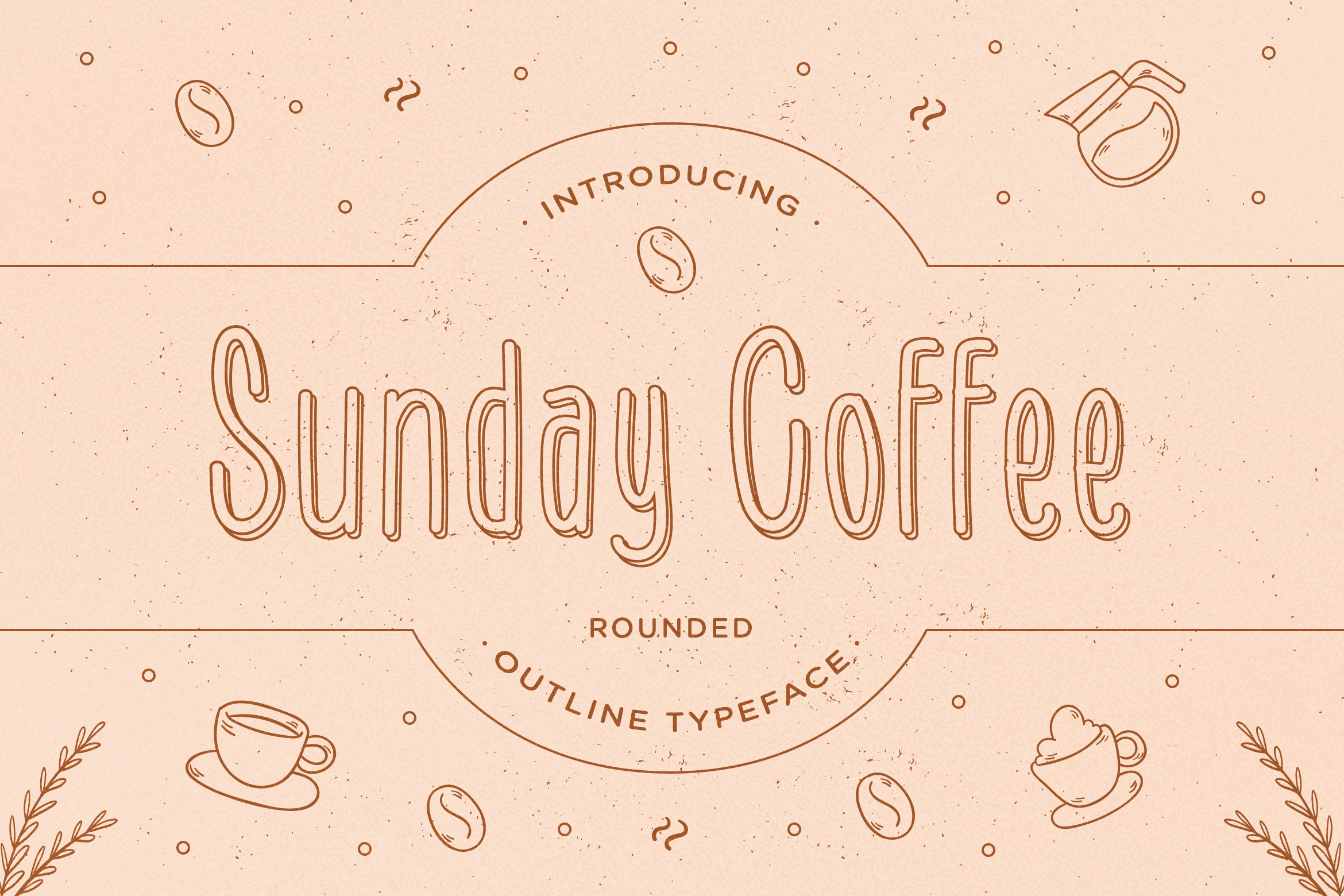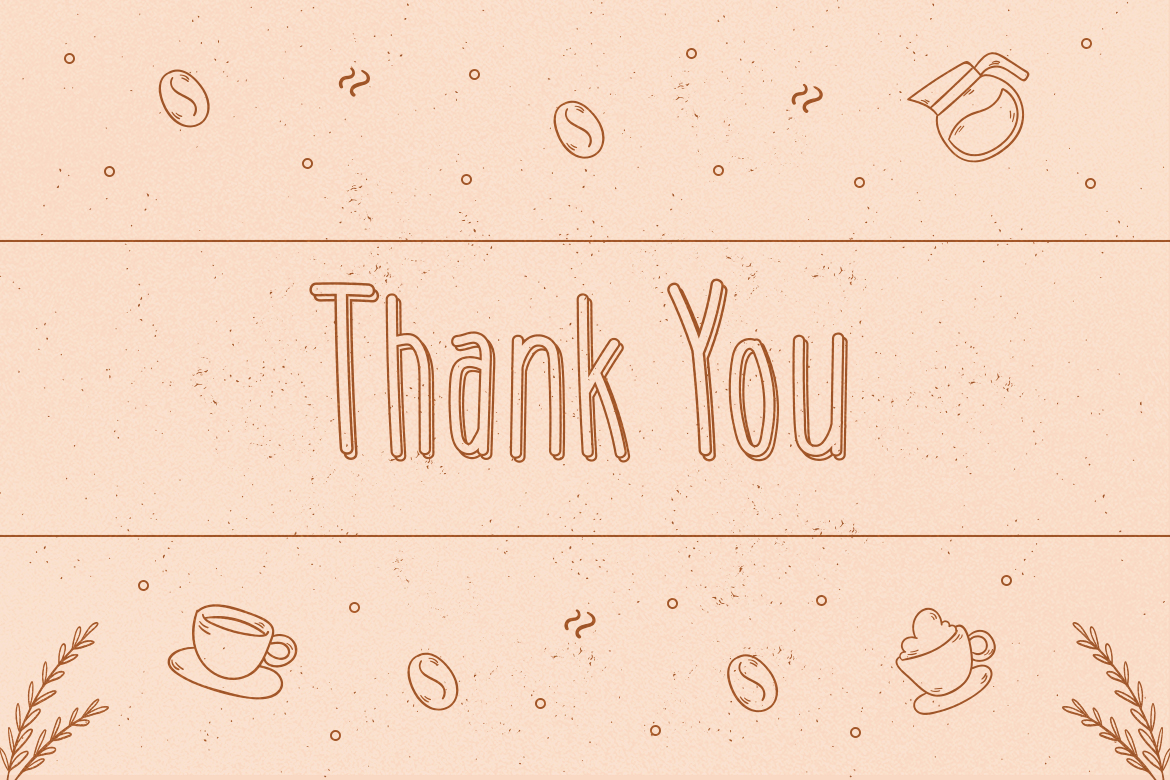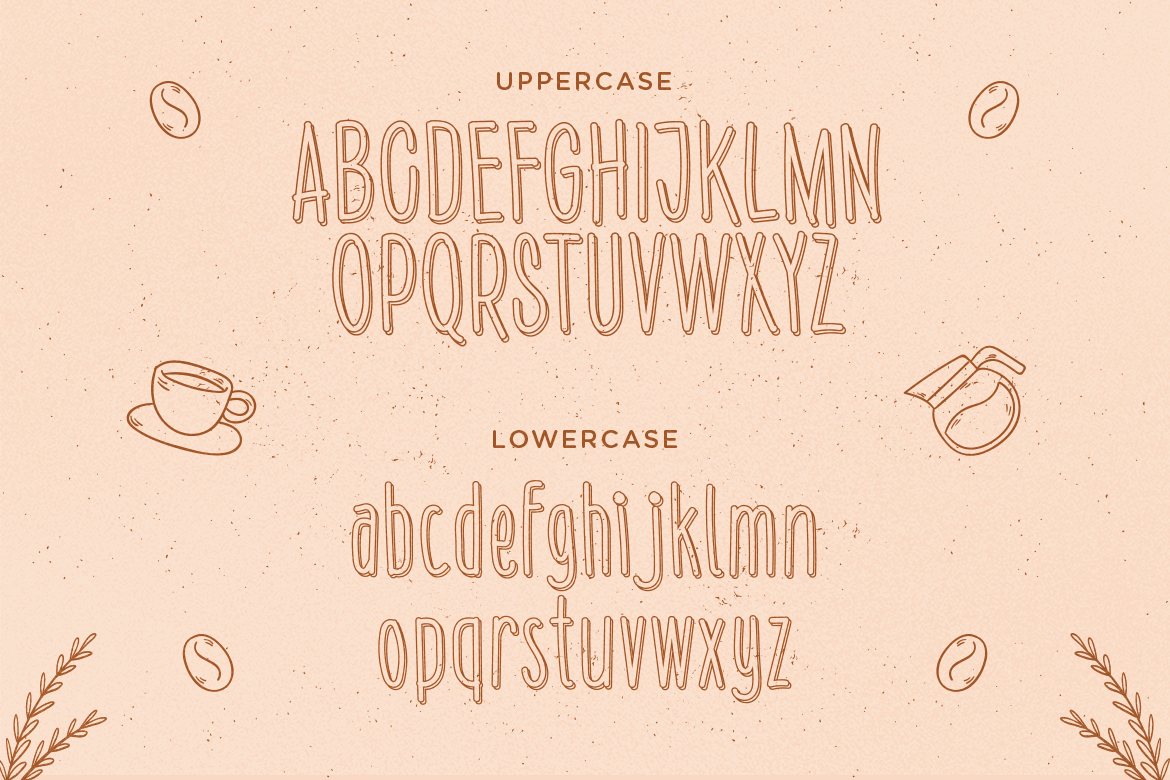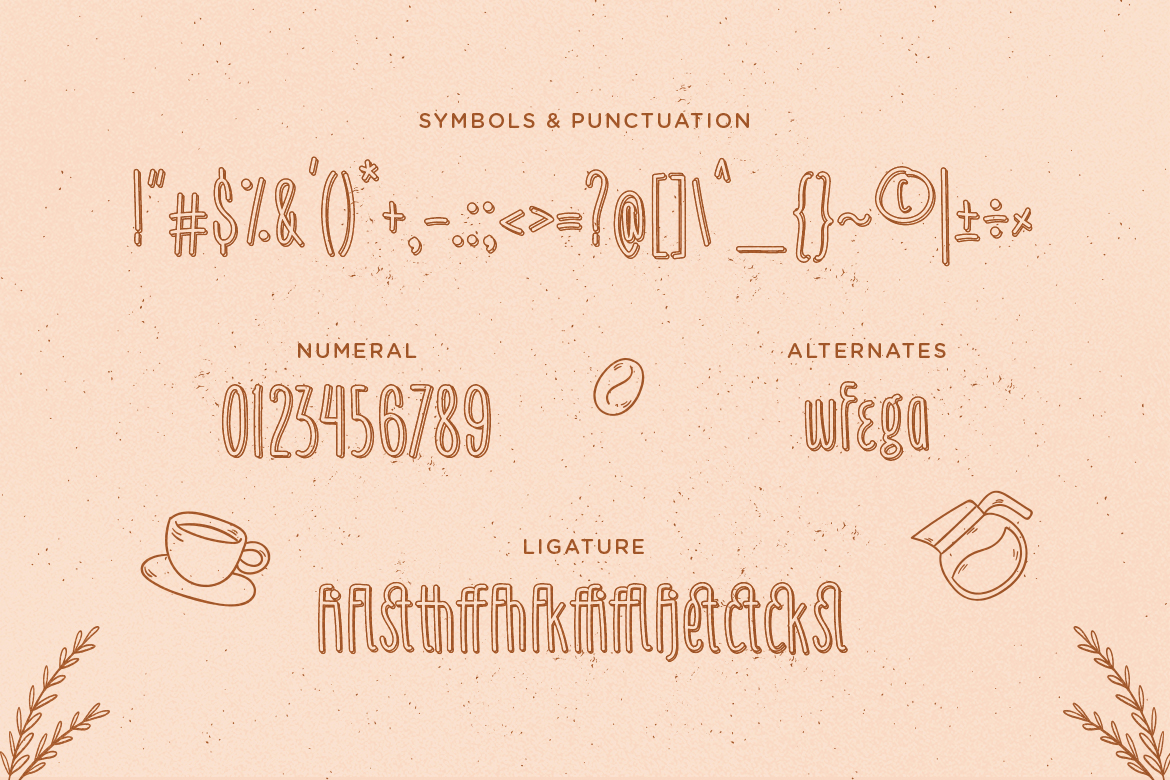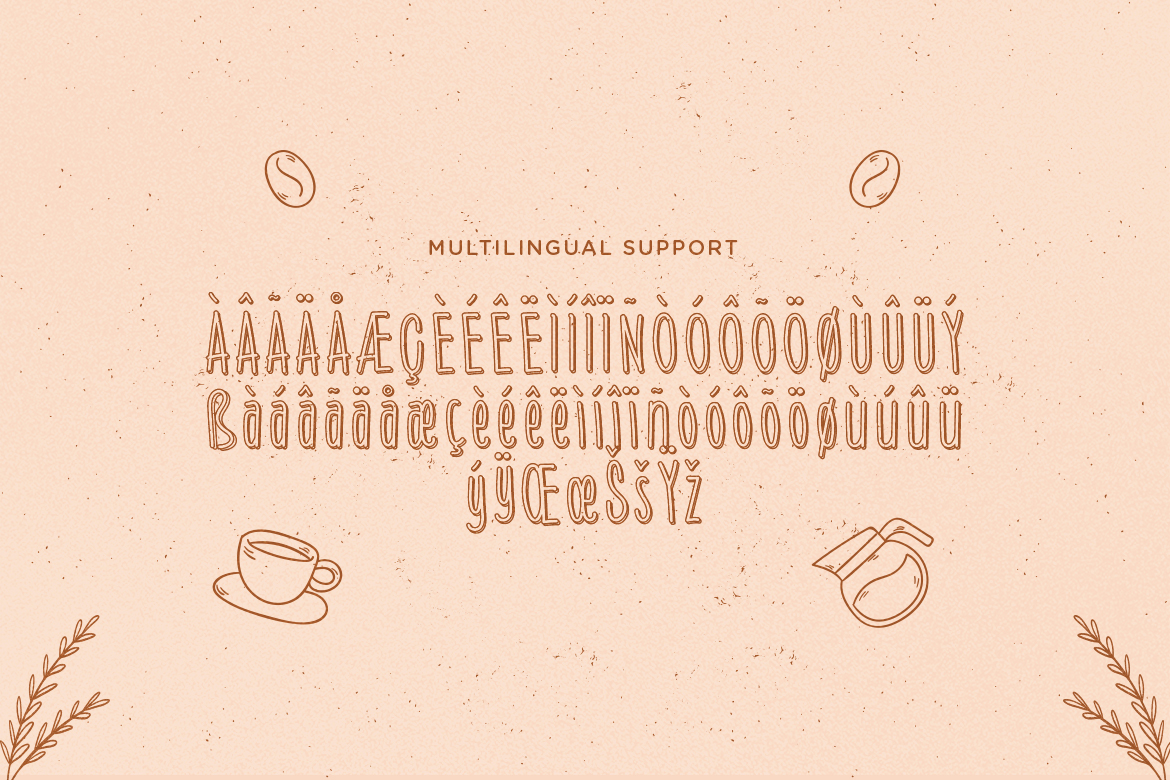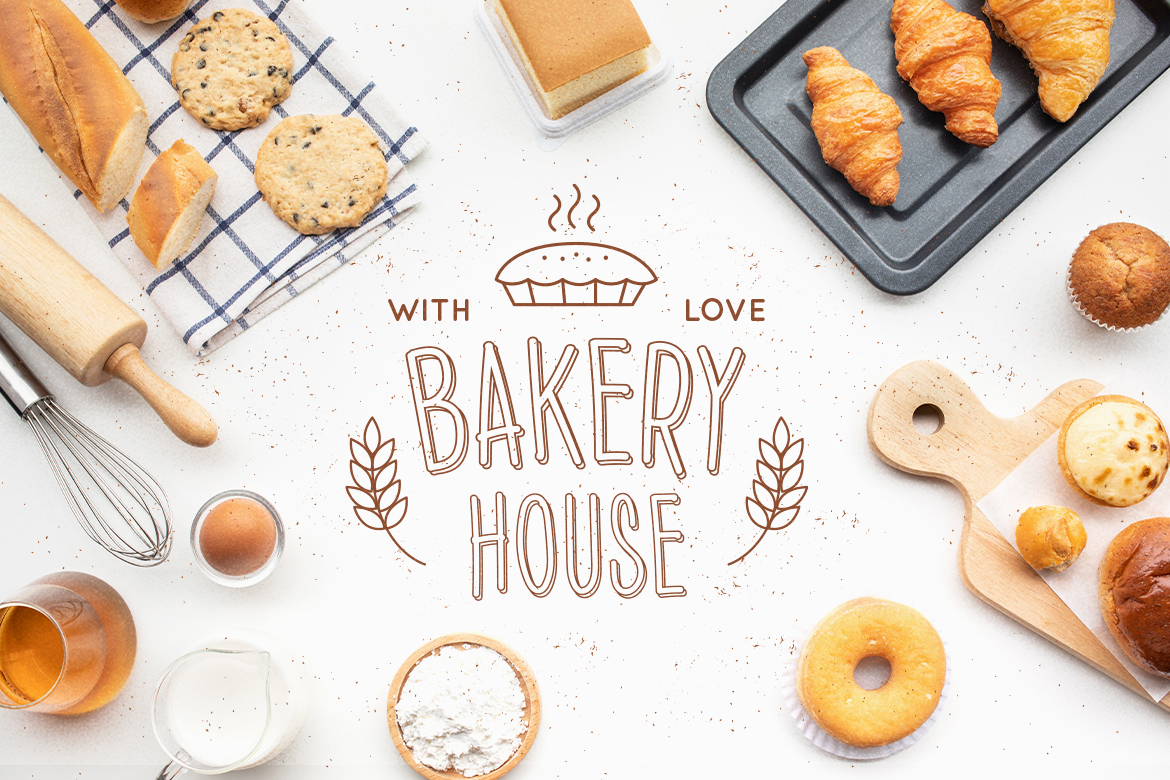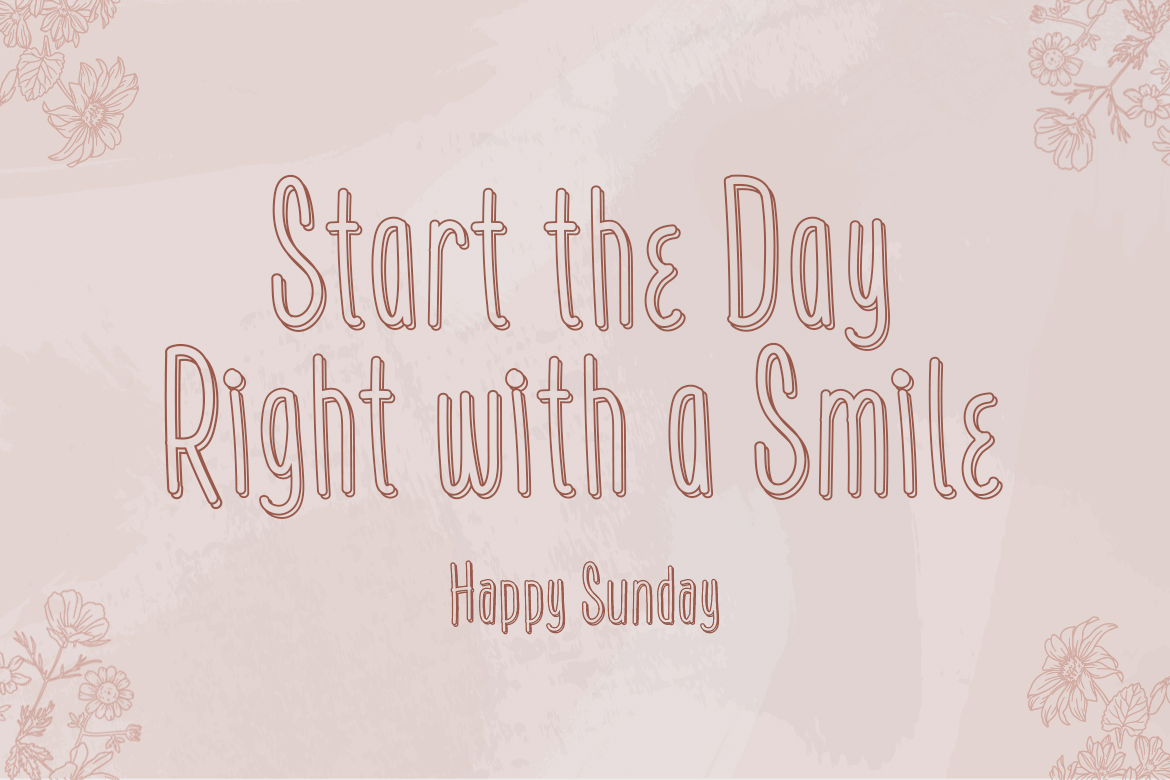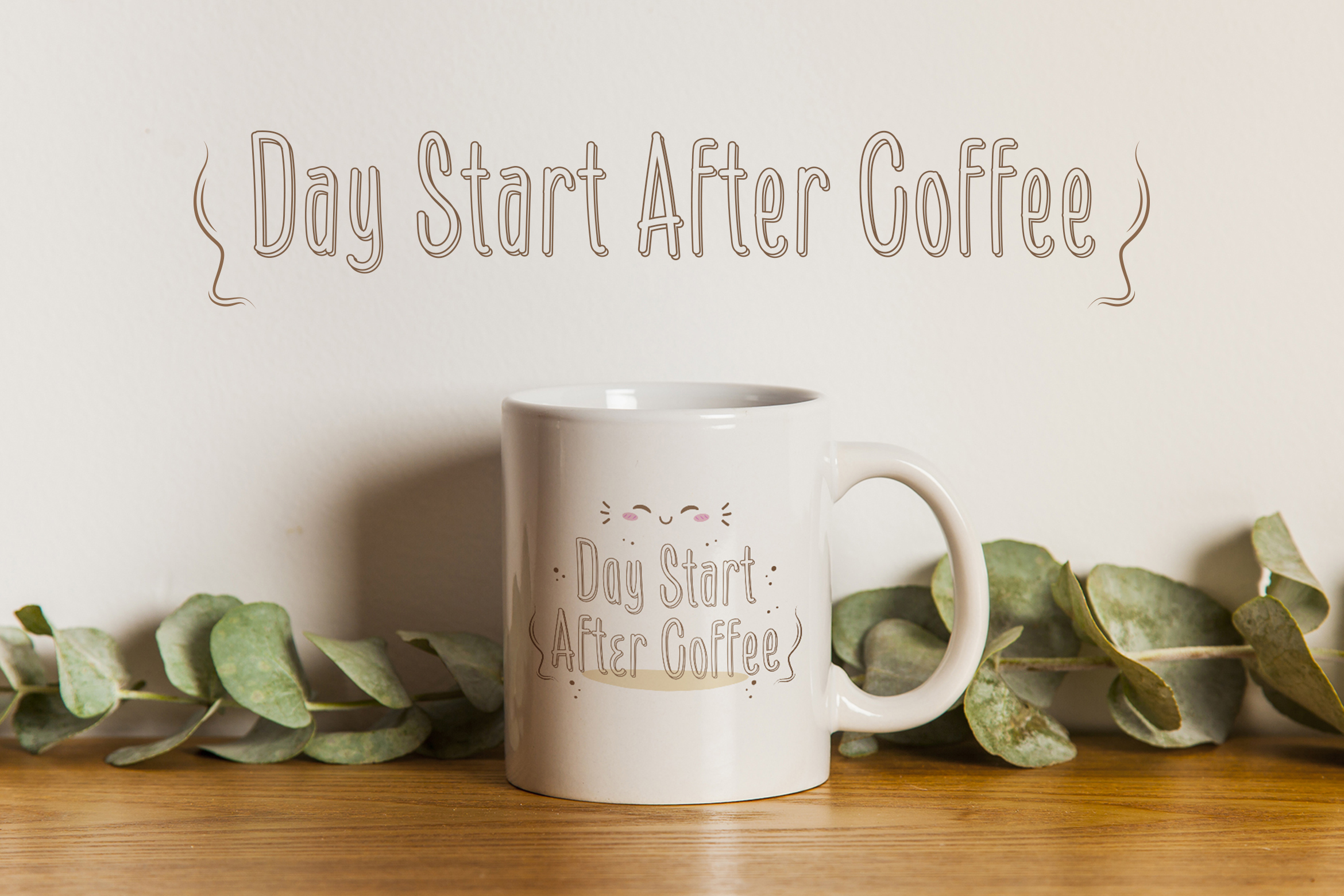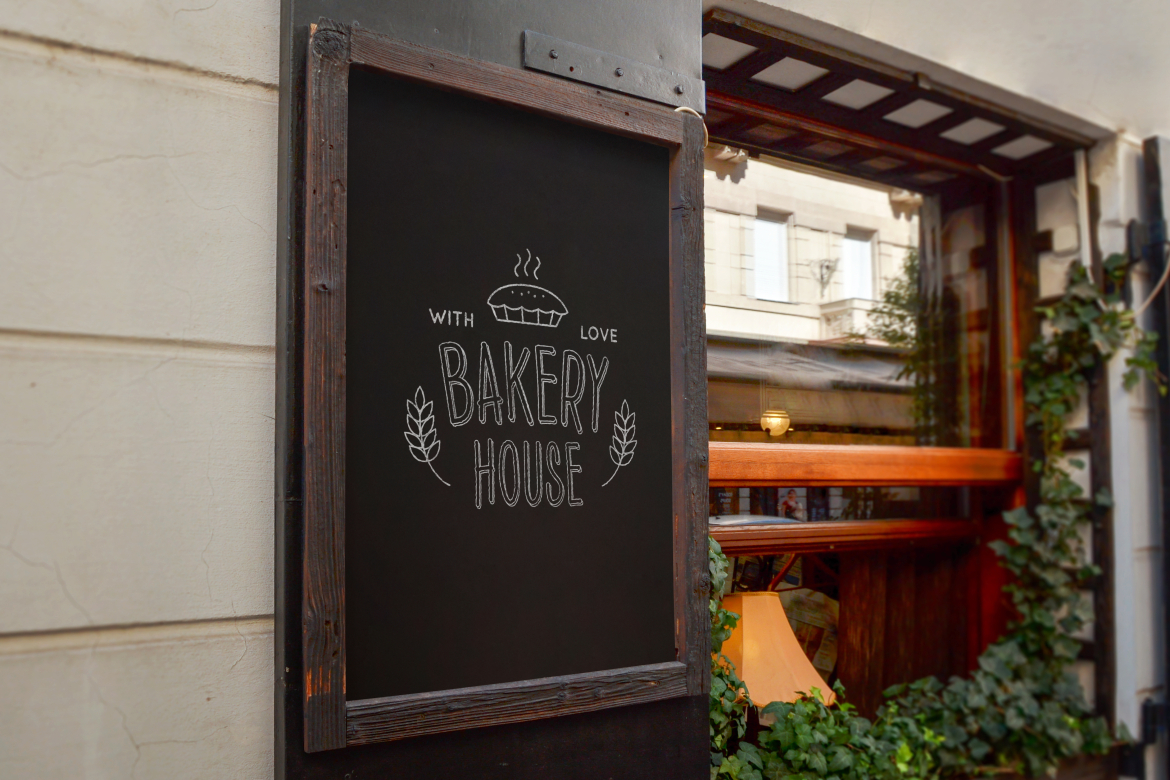
Sunday Coffee is a classic rounded outlined typeface that was inspired by the letters used in old advertisement and packagings. Its rigid shape gives your design strong, sharp and blocky feelings.
With its classic and vintage feel, it suits best for E-Sport logos, liquor/food labels, packaging, headlines, space-fillers, logotypes, typographic quote writings, pricelist menu for coffee shop etc.
– Uppercase – Lowercase – Symbols & Punctuation – Numeral – Alternates – Ligature – Multilingual Support